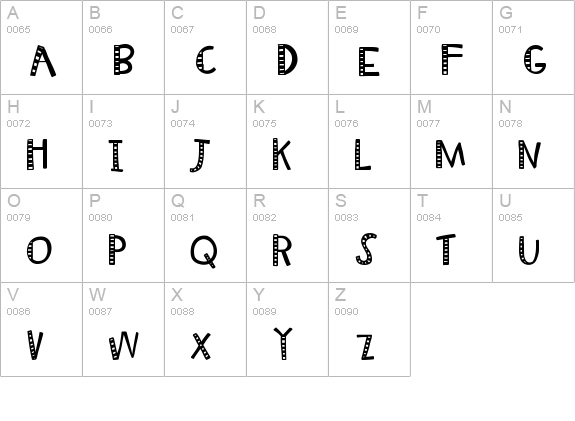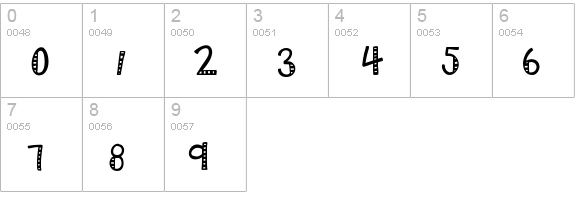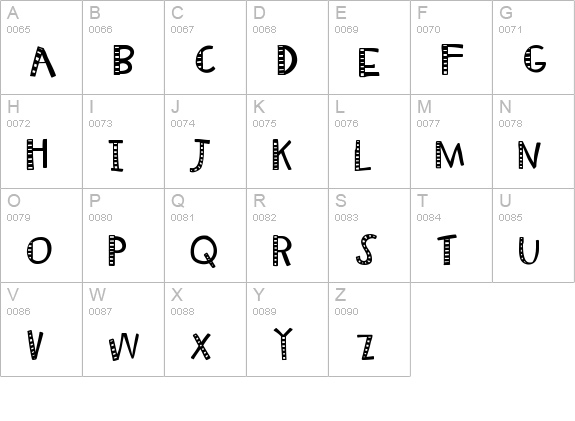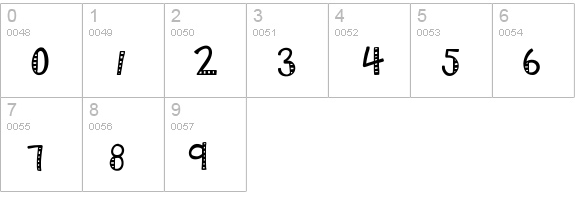
KBRadioWizard Font Details
KBRadioWizard font is a captivating and dynamic typeface that perfectly captures the spirit of radio waves. With its unique design and playful curves, this font is sure to make a statement in any project. Whether you're designing a logo for a radio station, creating eye-catching promotional materials, or adding a touch of whimsy to your personal blog, KBRadioWizard font will add a touch of magic to your typography. The flowing lines and intricate details of KBRadioWizard font make it stand out from the crowd. Each letter is carefully crafted to resemble the soundwaves that fill the airwaves, creating a sense of movement and energy. This font is perfect for adding a touch of excitement to any design, whether it's a bold headline or a subtle accent. One of the best things about KBRadioWizard font is that it is completely free. That's right, you can download this font for free at FontsMarket.com. This means that you can incorporate this stunning typeface into your projects without having to worry about breaking the bank. Whether you're a professional designer or a hobbyist, KBRadioWizard font is an excellent addition to your font library. Not only is KBRadioWizard font free, but it is also incredibly versatile. It comes in a variety of weights and styles, allowing you to choose the perfect variation for each project. From a bold and impactful headline to a subtle and elegant accent, this font has you covered. With its wide range of options, KBRadioWizard font is a versatile tool that will elevate your designs to new heights. So why wait? Download KBRadioWizard font today and let your creativity soar. With its captivating design, free availability, and incredible versatility, this font is a must-have for any designer. Whether you're working on a professional project or simply want to add a touch of magic to your personal creations, KBRadioWizard font is the perfect choice. Don't miss out on this opportunity to enhance your designs and make a lasting impression. Download KBRadioWizard font for free at FontsMarket.com and let your imagination run wild.